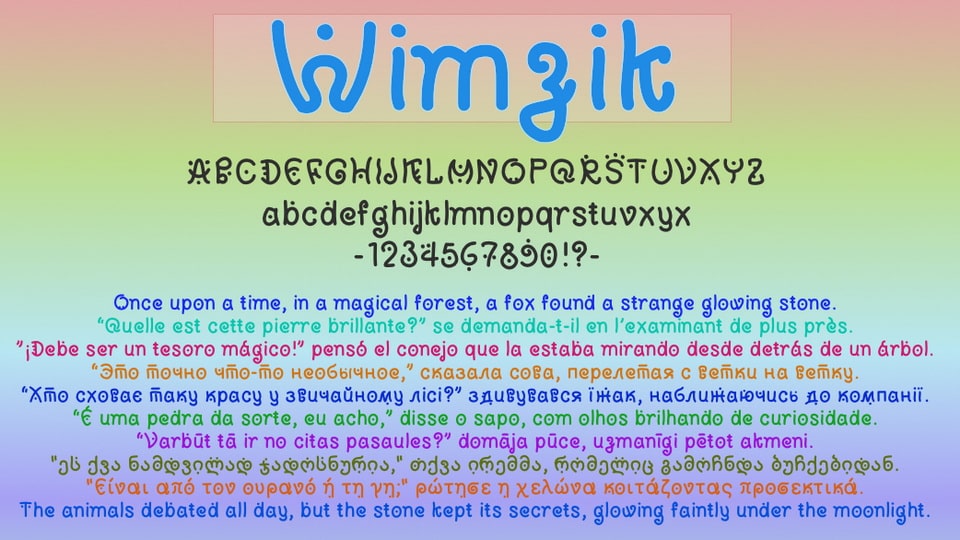
Download Wimzik font, a playful handwritten typeface with a whimsical character. Wimzik font is perfect for adding a lighthearted and personal touch to your creative projects.
Designer: Dimka